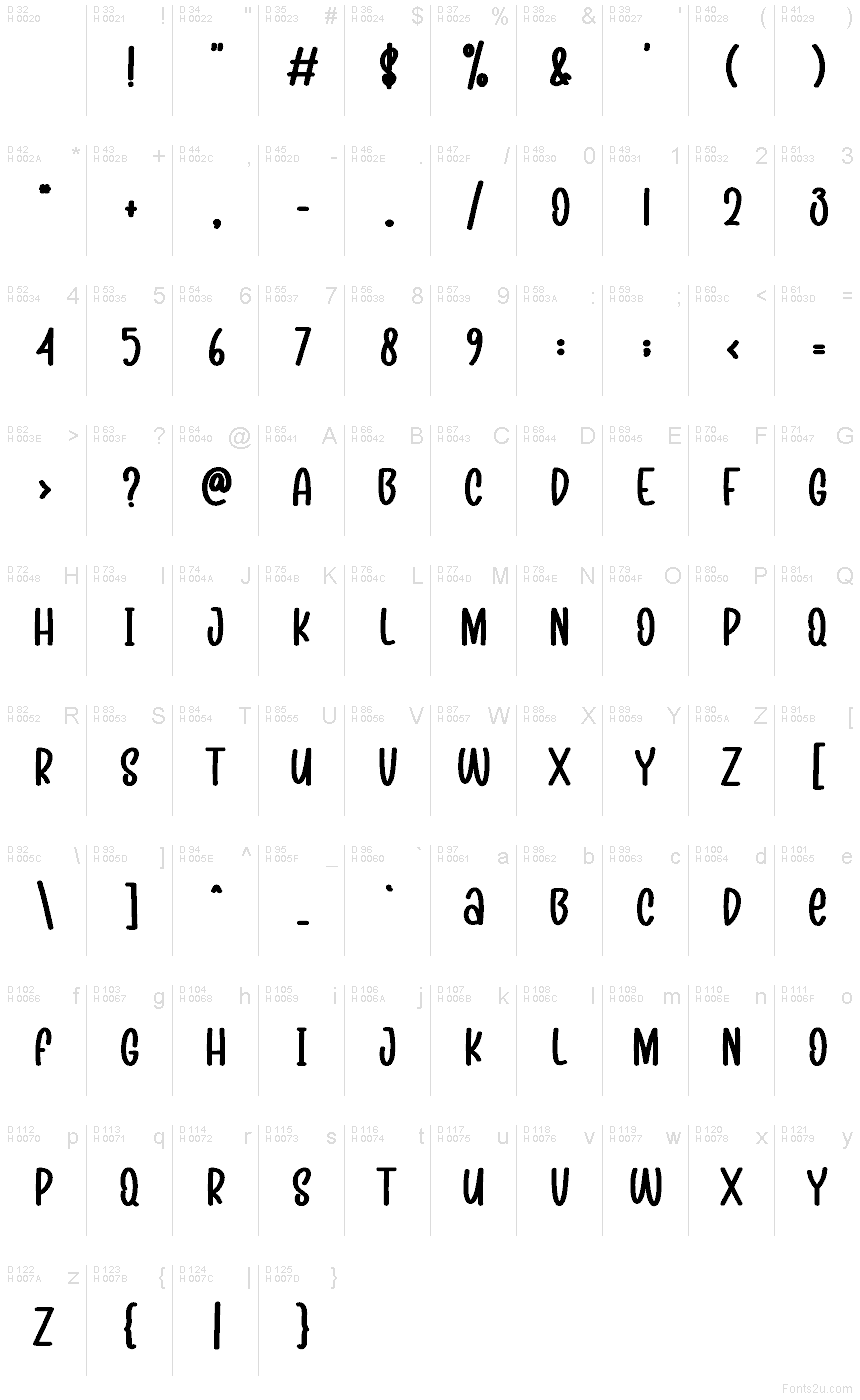
Thaitea Fresh
Thaitea Fresh font is a casual handwritten script by Scratchones with a charming visual effect. The brush condensed font combines a cartoonish style with friendliness and approachability to deliver retro-inspired letter designs. They are rounded in structure, which makes them fun and playful and suits readers of all ages.
This free modern display font is ideal for children’s products, informal branding projects, logo design, posters, packaging labels, book covers, invitations or greeting cards. Use it for website design or even animated videos made for entertainment purposes or education ones.